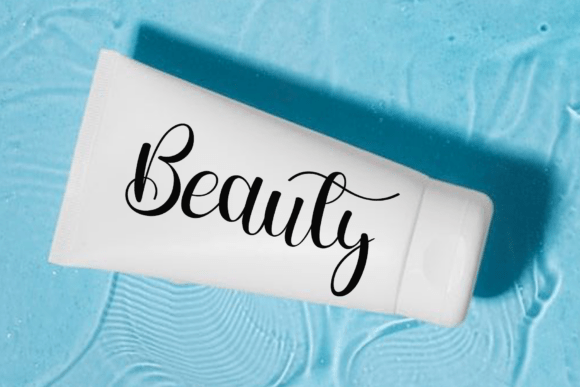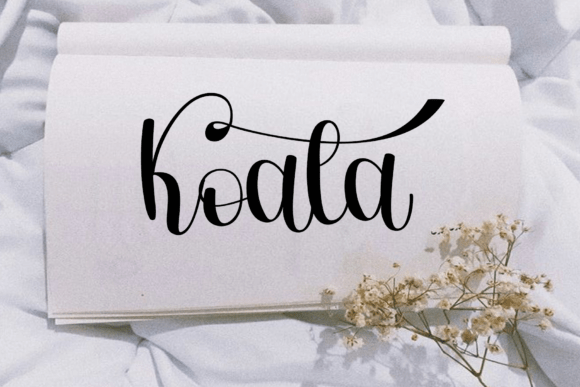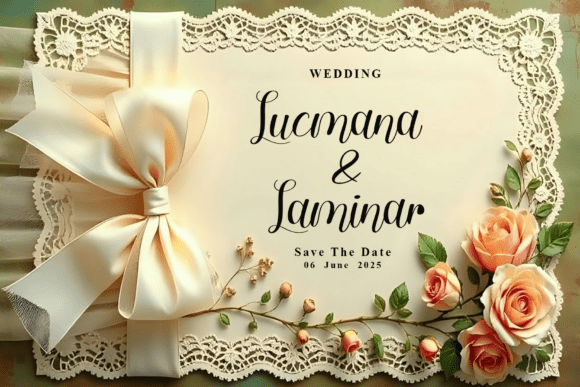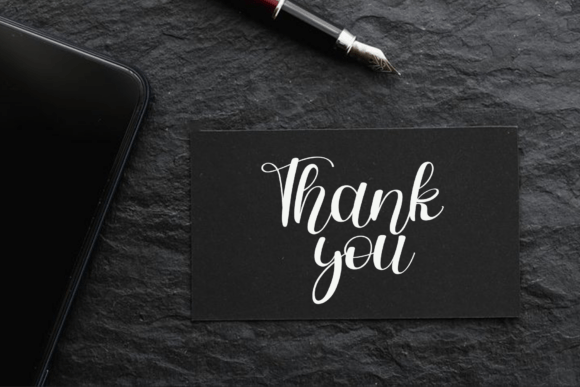
Introduction to Karate Font
Have you ever stared at a blank page, trying to come up with the perfect design for a creative project? You’ve got a vision in your head, but the right words and fonts just aren’t coming together. That’s when you stumble upon a hidden gem – a font that speaks directly to your artistic soul. For designers, the Karate Font is that elusive treasure, offering a unique blend of elegance and whimsy that elevates any design to the next level.
This charming, handwritten font is a game-changer for any high-quality design project, whether it’s a logo, branding, invitation, or social media post. With its free download option, you can incorporate it into your work without breaking the bank.
Key Features of Karate Font
- High-quality vector graphics for a professional look and feel in any creative project
- Transparent background for easy integration into designs with complex backgrounds
- Designed with a unique, bold style that’s perfect for headings and titles
Honest Review: Karate Font
I recently had the opportunity to work with the Karate Font, and I must say it’s been a game-changer for my creative project. The font is available for free download, which is a huge plus for designers on a budget.
One of the standout features of the Karate Font is its high quality. The font is crisp and clear, making it perfect for a variety of design applications. I particularly appreciate the transparent background, which gives me the flexibility to layer it over different images and colors.
Here are some things that work well with the Karate Font:
- ✨ High-quality design: The font is well-crafted and looks great on a variety of devices.
- ✨ Versatile: The Karate Font can be used for a wide range of creative projects, from branding and logos to typography and graphics.
While the Karate Font is a great resource, there are a few limitations to be aware of:
- ⚠️ Limited character set: The font only includes a limited set of characters, which may not be suitable for all design applications.
- ⚠️ Not ideal for small text: The font can be difficult to read in small sizes, so it’s best to use it for larger typography applications.
Overall, I’m very impressed with the Karate Font. It’s a great free download that can add a touch of style and sophistication to any design project. Just be aware of the limitations, and you’ll be all set for a successful design outcome.
Karate Font is a high-quality design resource ideal for creative projects. It offers a unique and bold style that can add a touch of elegance to your work.
Tips for Getting the Most Out of Karate Font
To get the most out of Karate Font, use it in combination with a transparent background to create a striking design. You can also experiment with different font sizes and colors to create a unique look.
Common Use Cases for Karate Font
Karate Font is commonly used in creative projects such as logo designs, business cards, and brochures. Its bold and elegant style makes it perfect for creating attention-grabbing designs.